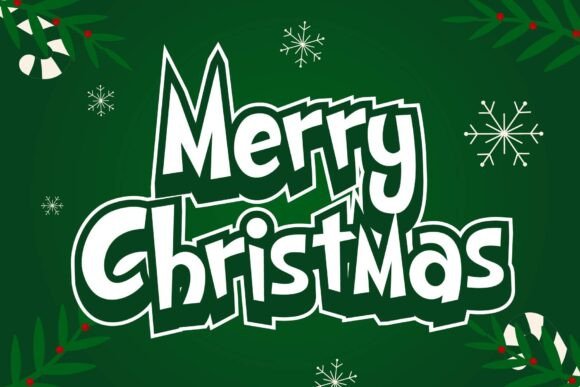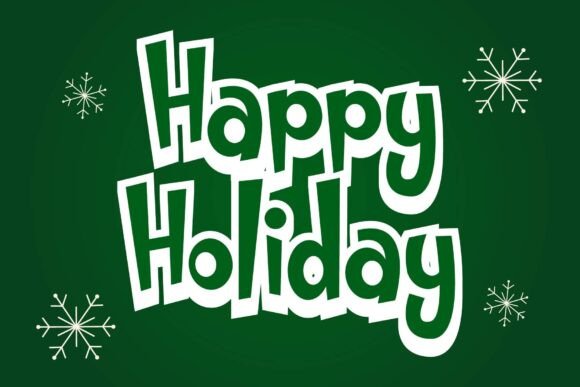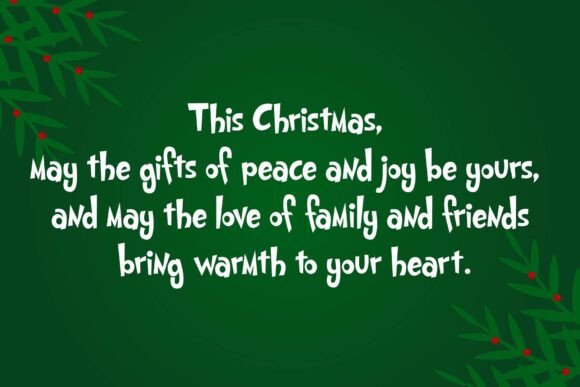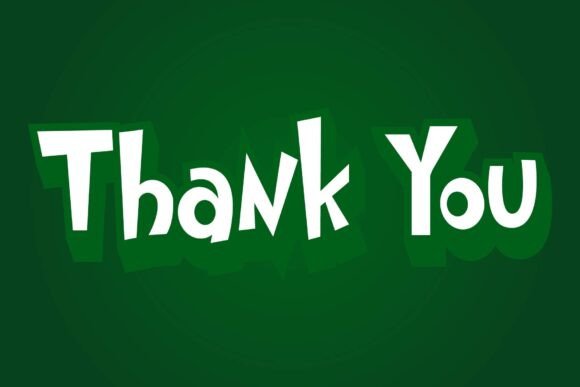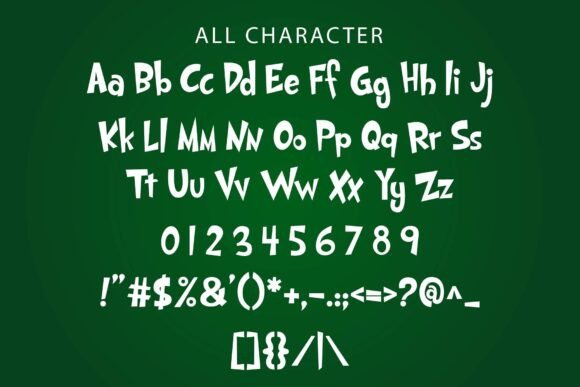
Introducing Grinch 0.1: The Ultimate Stylish Font for Creative Projects
Are you a designer, crafty enthusiast, or simply someone who loves to add a touch of personality to their projects? Look no further! We’re excited to introduce Grinch 0.1, an exquisite stylish font that seamlessly blends modern quality with the whimsical charm of the Grinch Cartoon Font. This fantastic font is ideal for title headings, movie names, and T-shirt designs, and is sure to add a dash of flair to any creative project.
What is Grinch 0.1 Font?
Grinch 0.1 is a thoughtfully designed font that captures the essence of the beloved Grinch cartoon character. With its unique and captivating design, this font is perfect for anyone looking to add a touch of playfulness and sophistication to their work. Whether you’re a professional designer or a crafty enthusiast, Grinch 0.1 is sure to inspire your creativity and take your projects to the next level.
Key Features of Grinch 0.1 Font
So, what makes Grinch 0.1 so special? Here are some of its key features:
- 96 Meticulously Designed Glyphs: Grinch 0.1 boasts an impressive 96 glyphs, carefully crafted to ensure that every character is unique and visually appealing.
- 95 Characters: With 95 characters at your disposal, you’ll have everything you need to create stunning text-based designs.
- Modern Quality: Grinch 0.1 combines modern design principles with a playful twist, making it perfect for a wide range of creative projects.
- Whimsical Charm: The font’s whimsical design is sure to capture the hearts of anyone who loves the Grinch cartoon character.
Use Cases for Grinch 0.1 Font
Grinch 0.1 is an incredibly versatile font that can be used in a variety of creative projects. Here are some ideas to get you started:
- Title Headings: Add a touch of sophistication and playfulness to your title headings with Grinch 0.1.
- Movie Names: Create eye-catching movie titles and posters with this fantastic font.
- T-Shirt Designs: Design stunning T-shirts with Grinch 0.1, perfect for fans of the Grinch cartoon character.
- Graphic Design Projects: Use Grinch 0.1 in a wide range of graphic design projects, from brochures to posters and more.
Why Choose Grinch 0.1 Font?
With so many fonts available, why choose Grinch 0.1? Here are just a few reasons:
- Unique Design: Grinch 0.1 boasts a unique and captivating design that’s sure to stand out from the crowd.
- High-Quality: With 96 glyphs and 95 characters, Grinch 0.1 is a high-quality font that’s perfect for professional designers and crafty enthusiasts alike.
| Font Name | Grinch 0.1 Font |
| Author | Densu Creative |